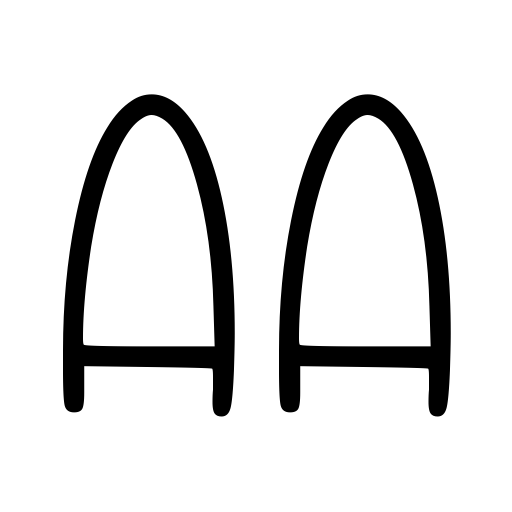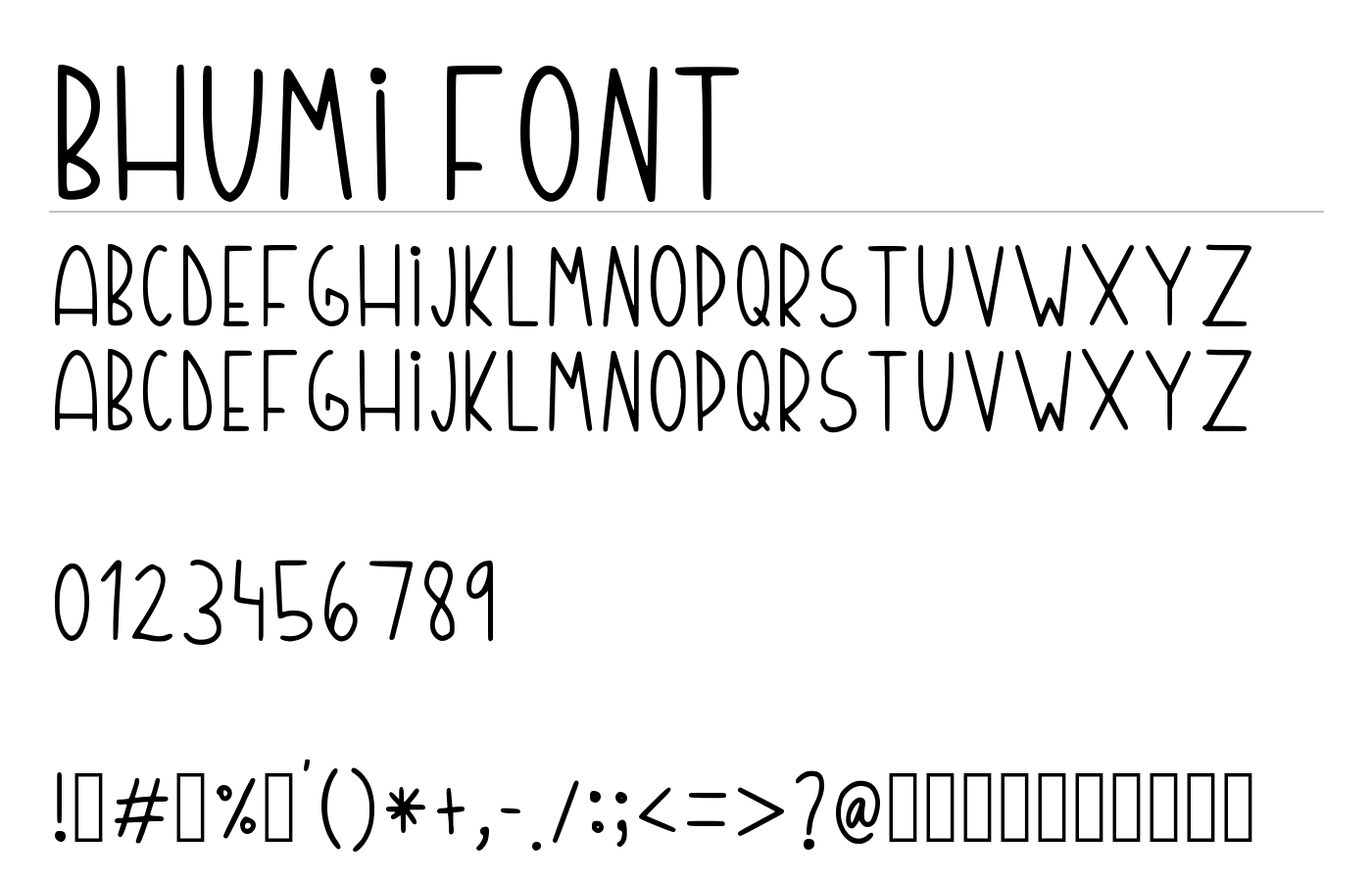
Bhumi Font is a playful and casual sans serif with a hand-drawn feel, featuring tall, narrow letterforms and irregular strokes that give it a friendly, approachable personality. Its light weight and airy spacing make it perfect for informal branding, children's content, or creative projects looking to convey warmth and simplicity. This font shines in headlines, logos, and packaging where a touch of whimsy and uniqueness is desired.
Bhumi Font